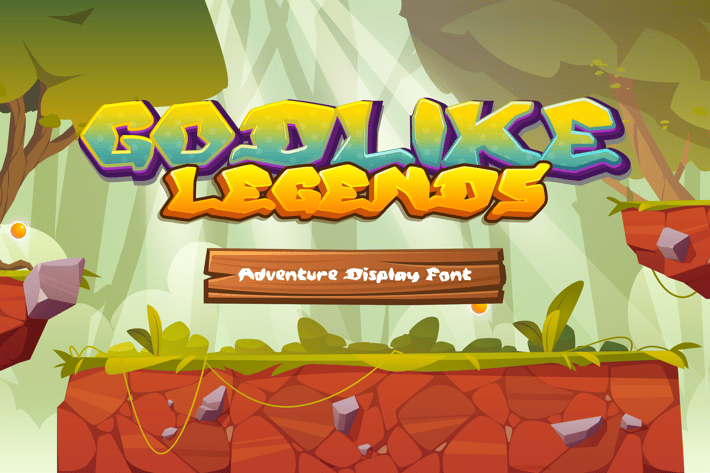
Godlikes Legend Display Font
Godlkes Legend Display Font, is our new font and suitable for mockup or any work.
Great for
Sticker, Invitation Card, Brochure, etc.